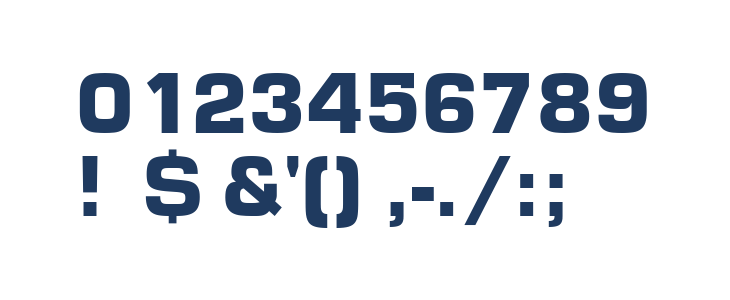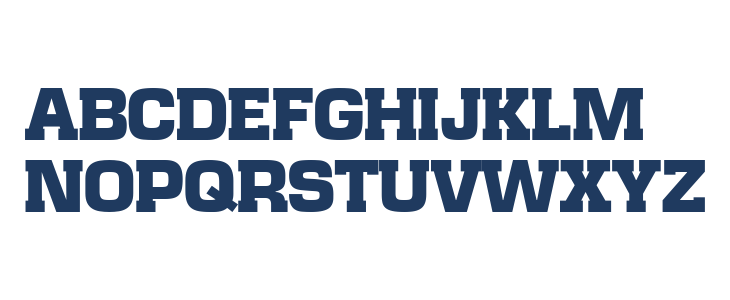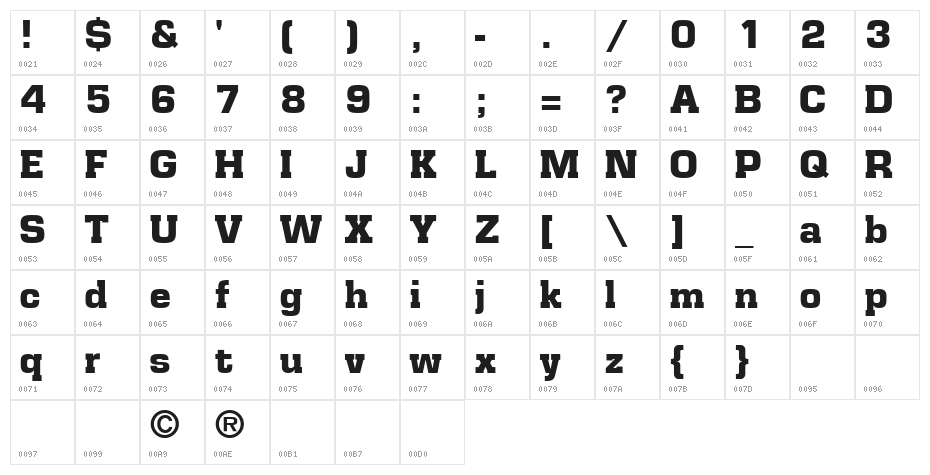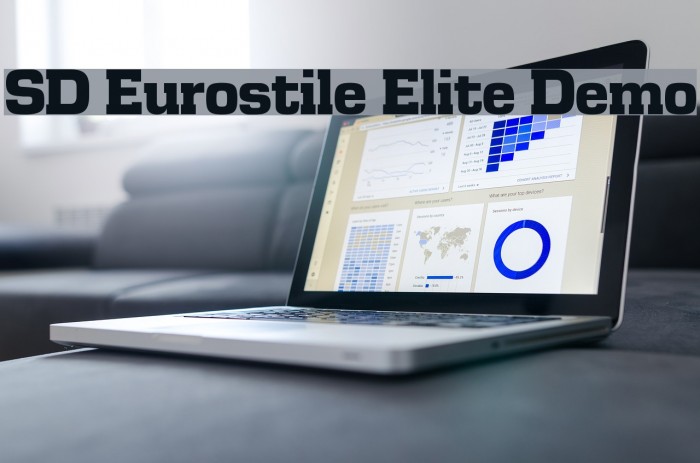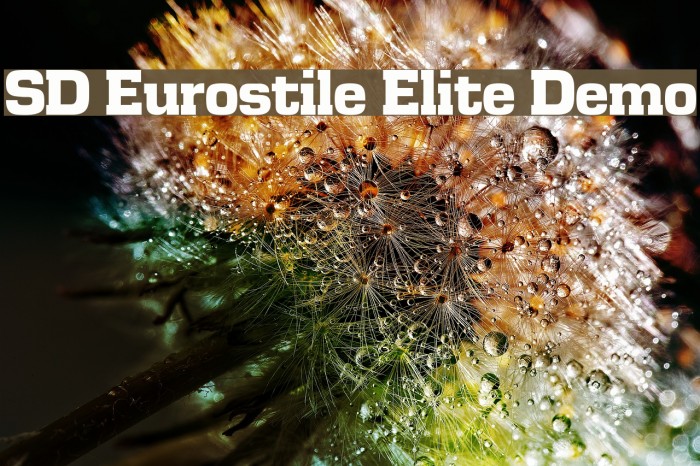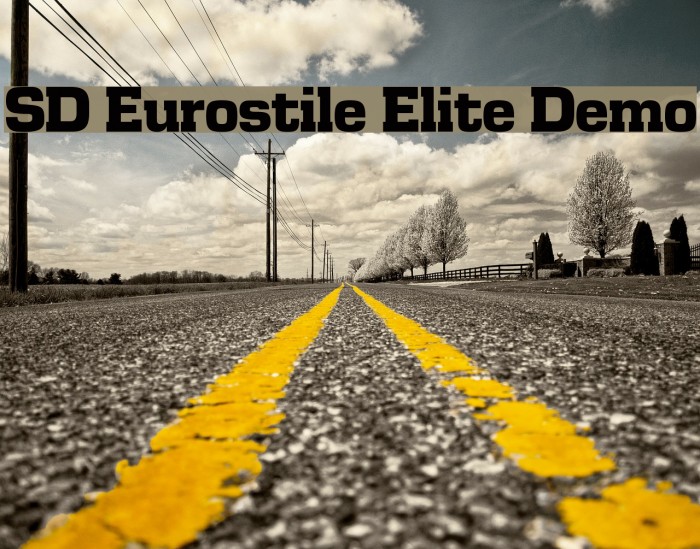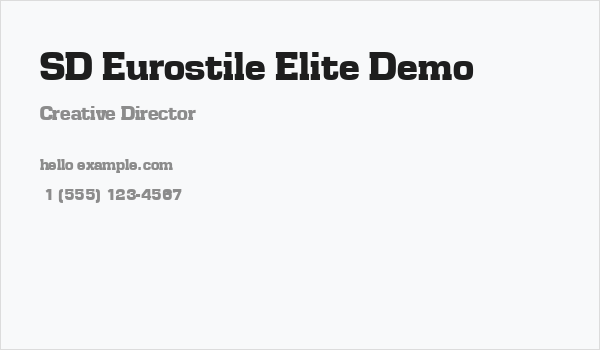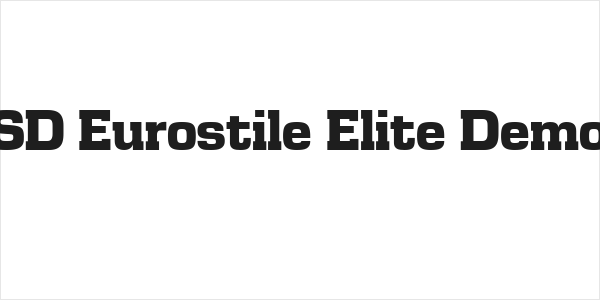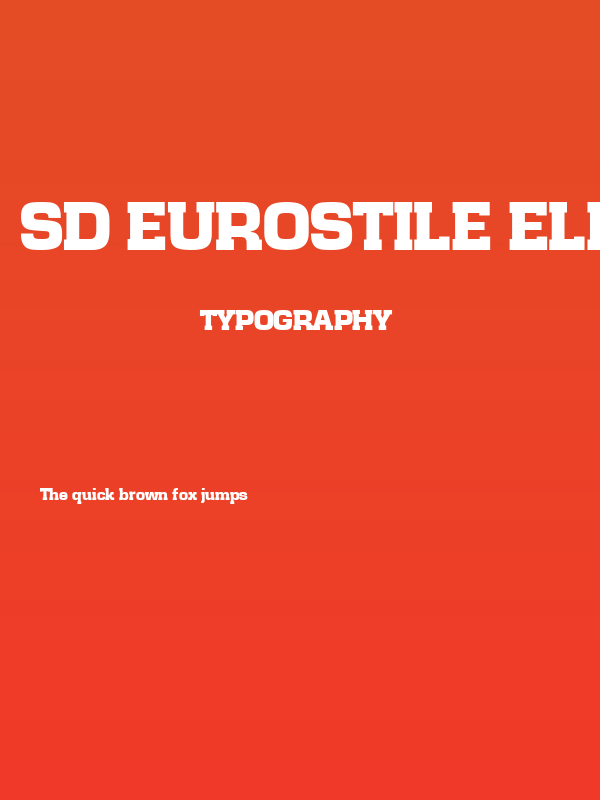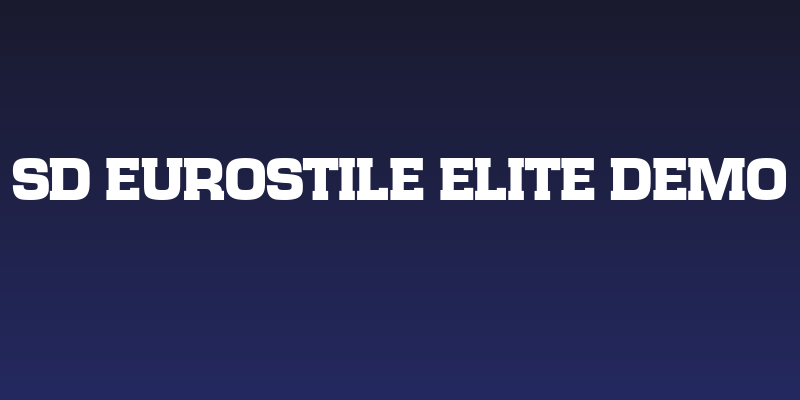
SD Eurostile Elite Demo Font
SD Eurostile Elite Demo Description
This font features a bold and robust design with strong geometric shapes and a modern aesthetic. The uppercase letters are blocky and wide, giving a sense of stability and strength. The lowercase letters maintain the same boldness, with rounded edges that soften the overall appearance. The numerals are consistent with the letterforms, ensuring uniformity across the typeface. Special characters are designed to match the bold style, making them easily recognizable and cohesive with the rest of the set. This font is ideal for making a strong visual impact.